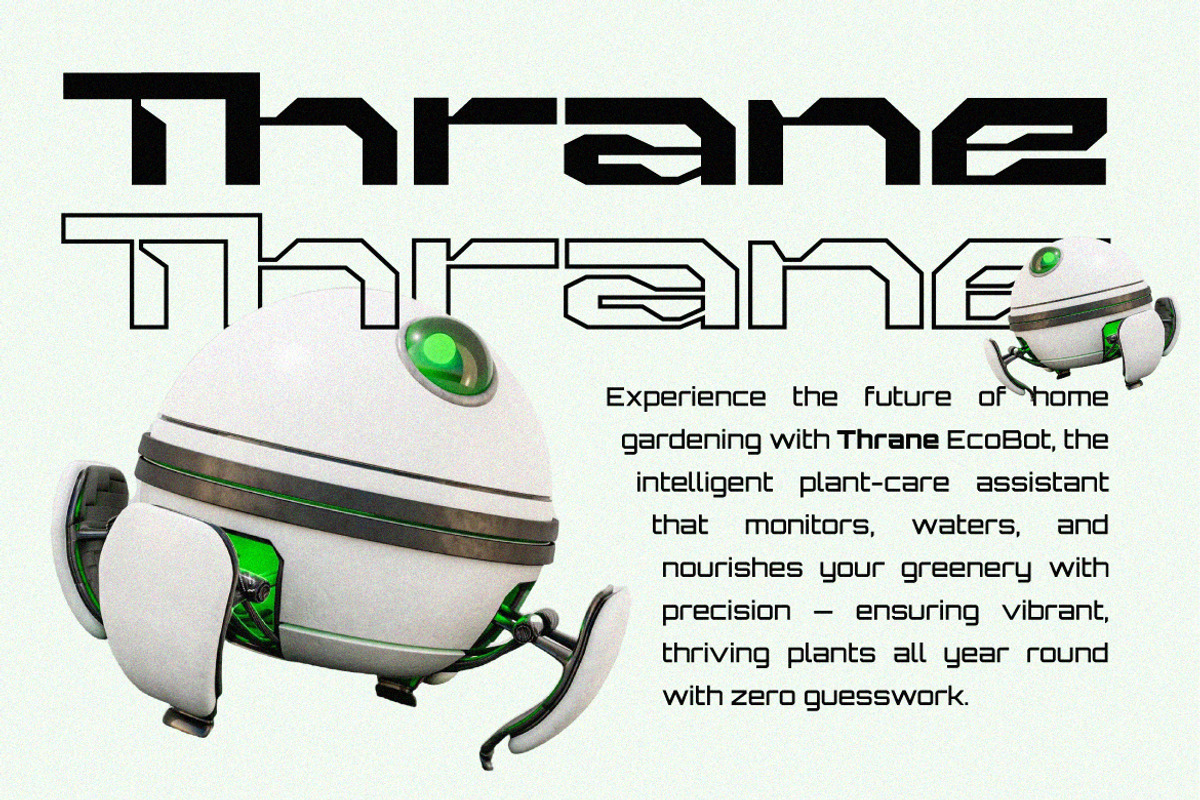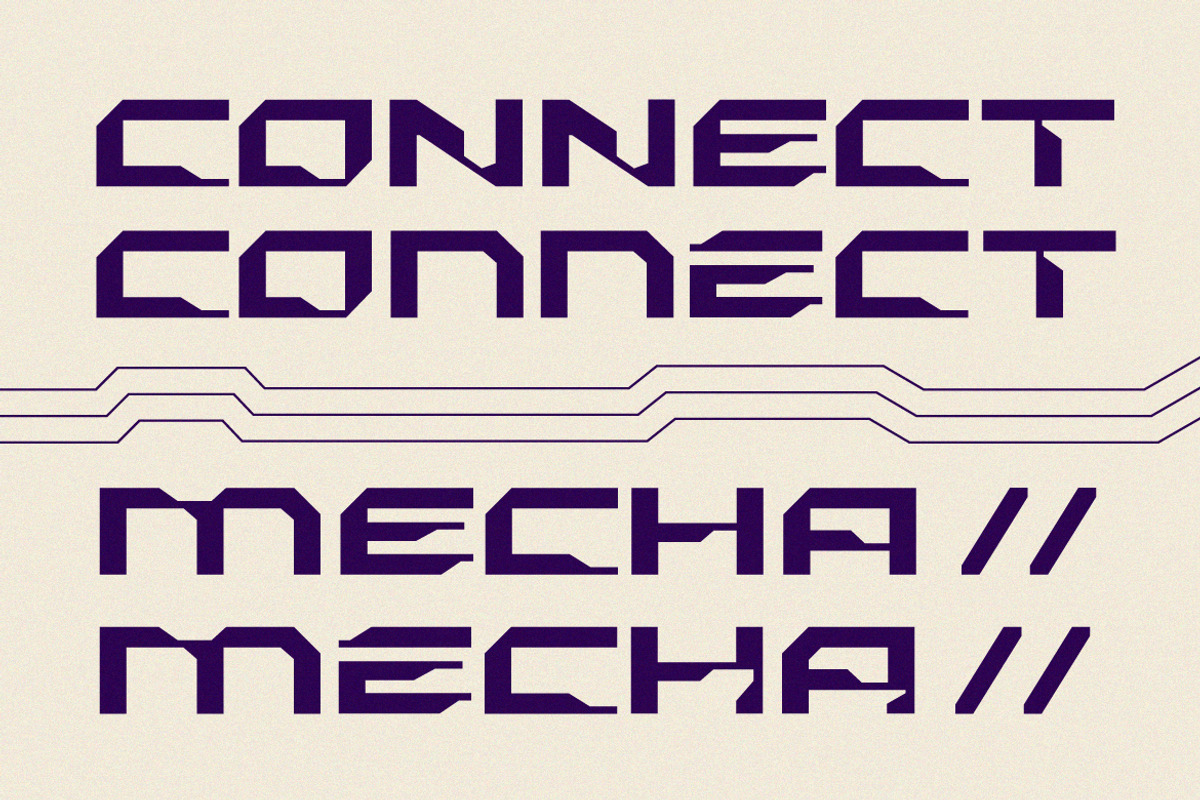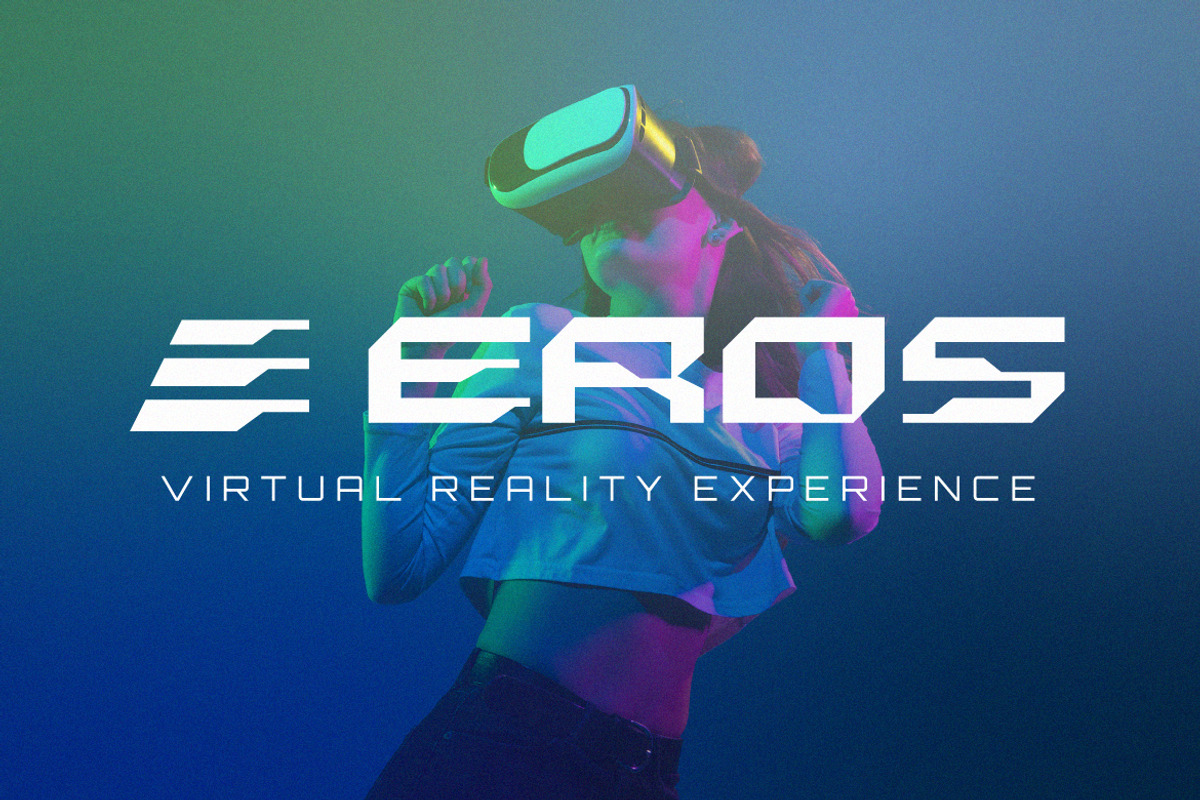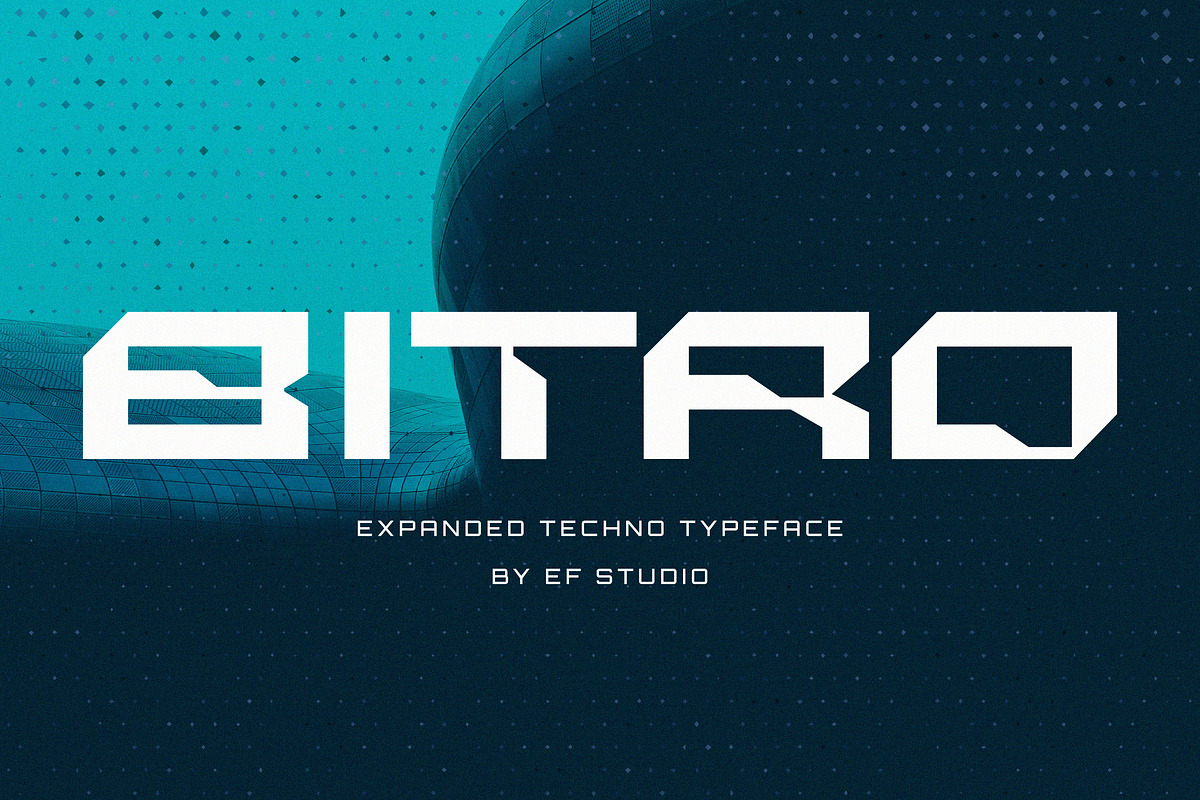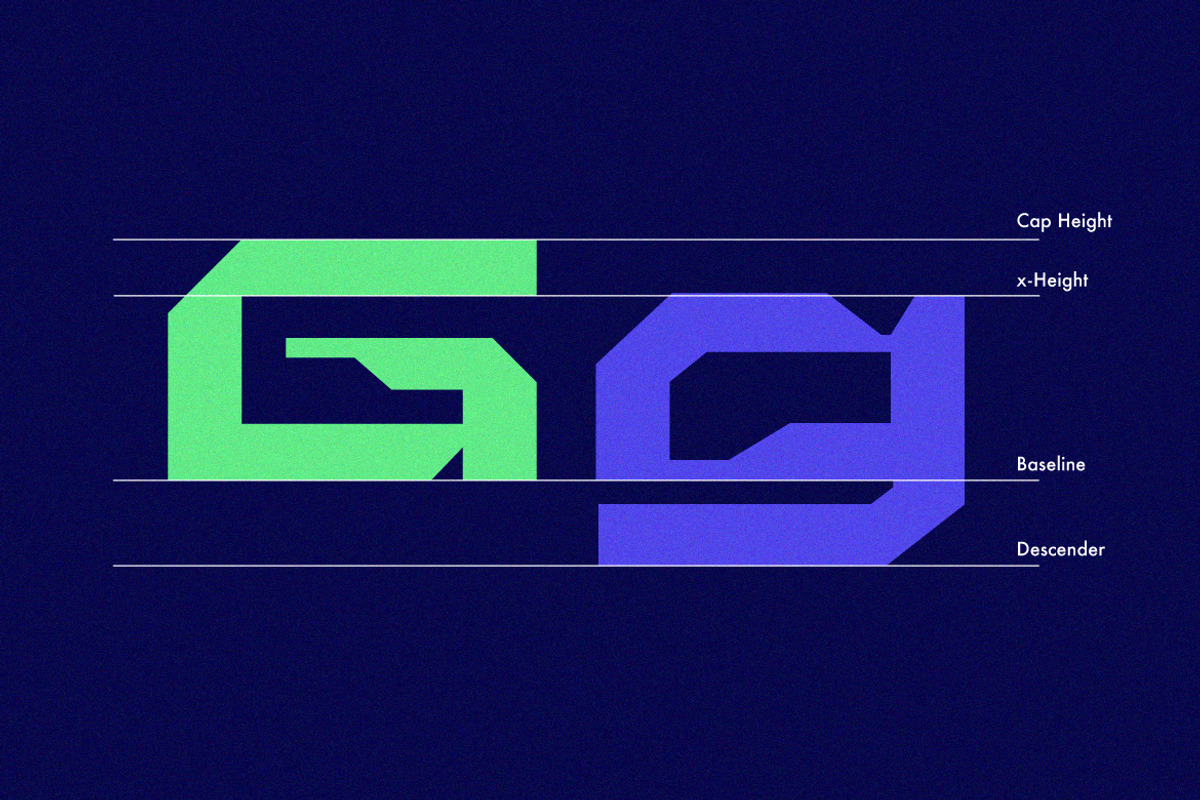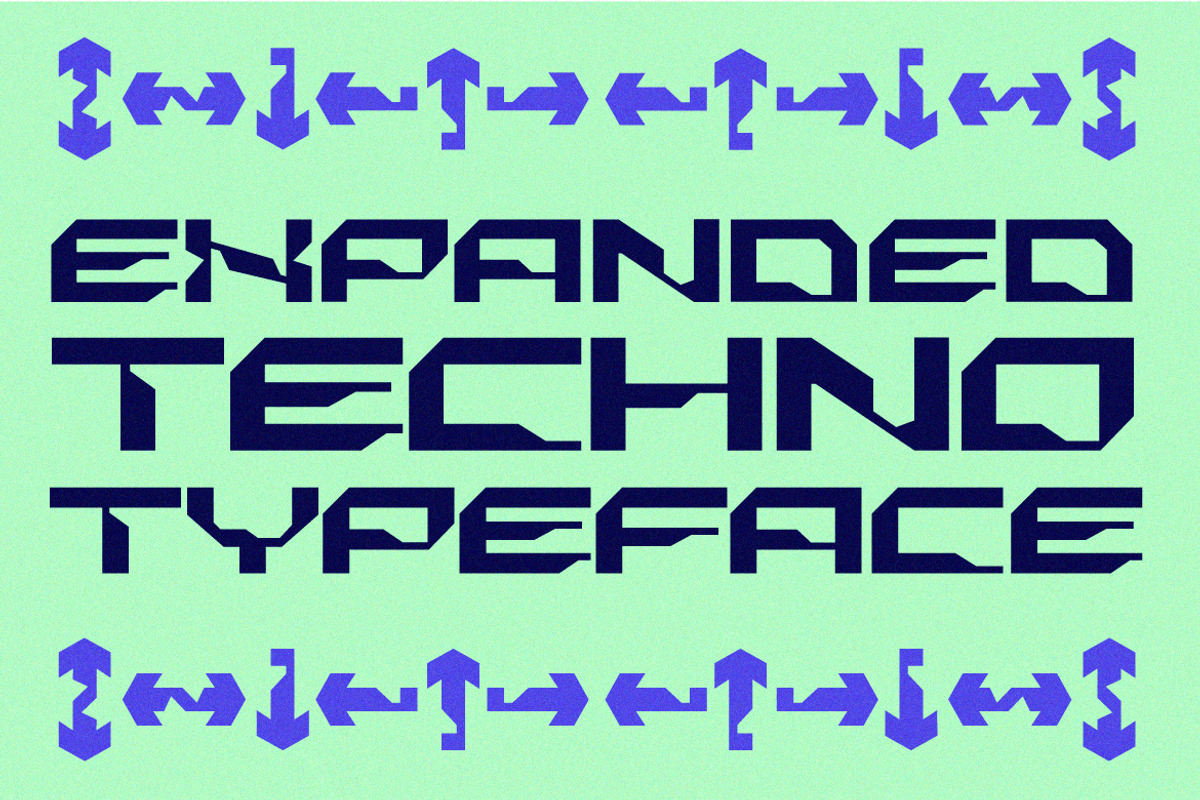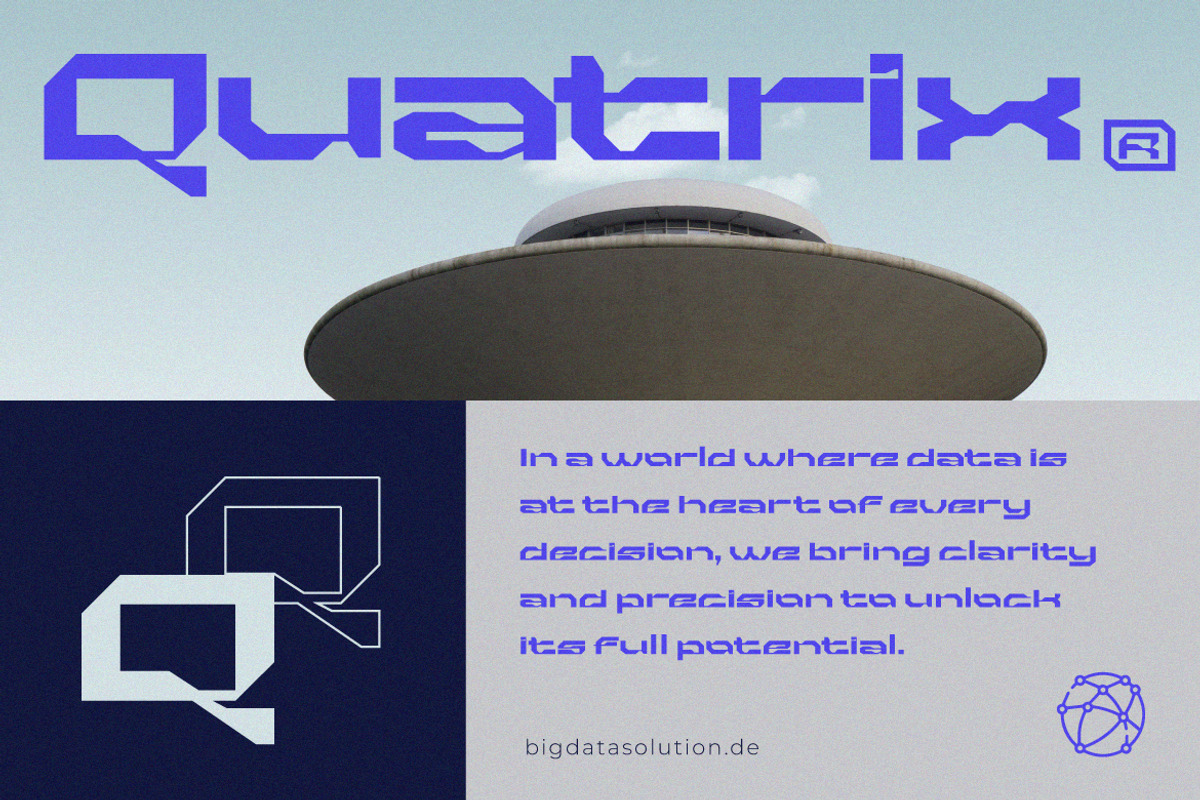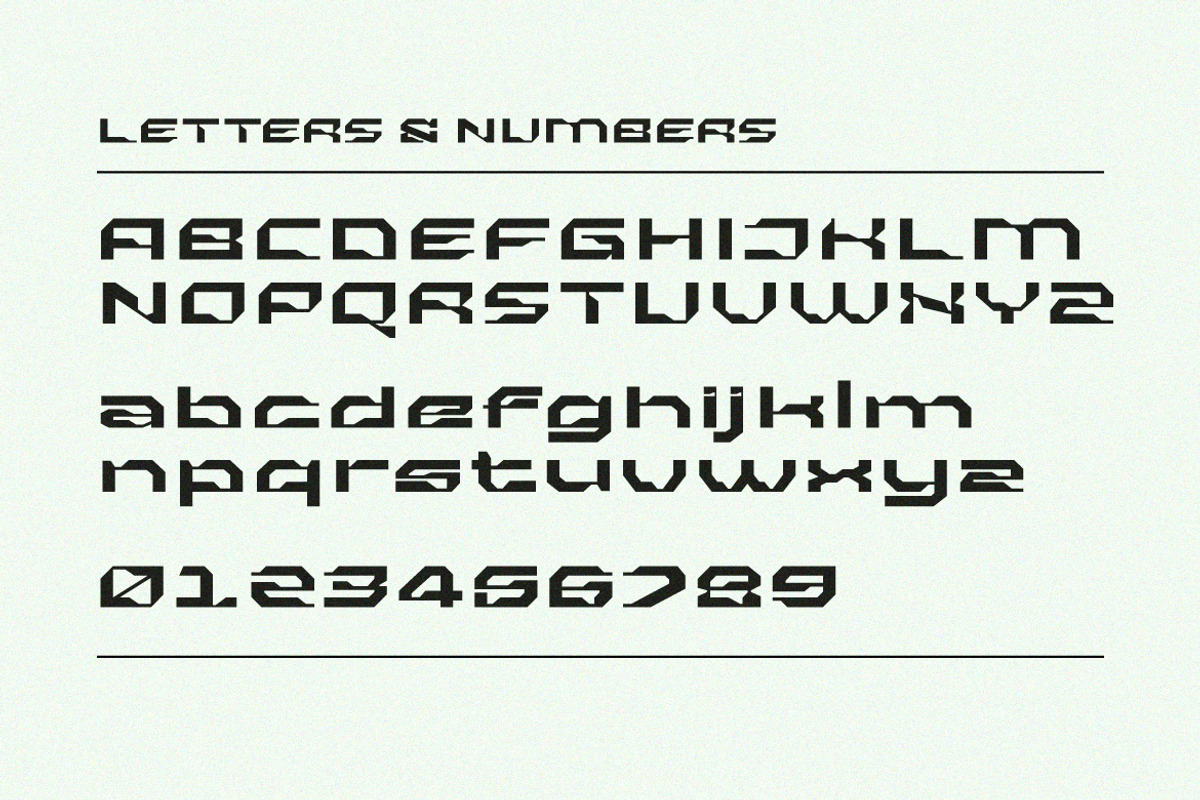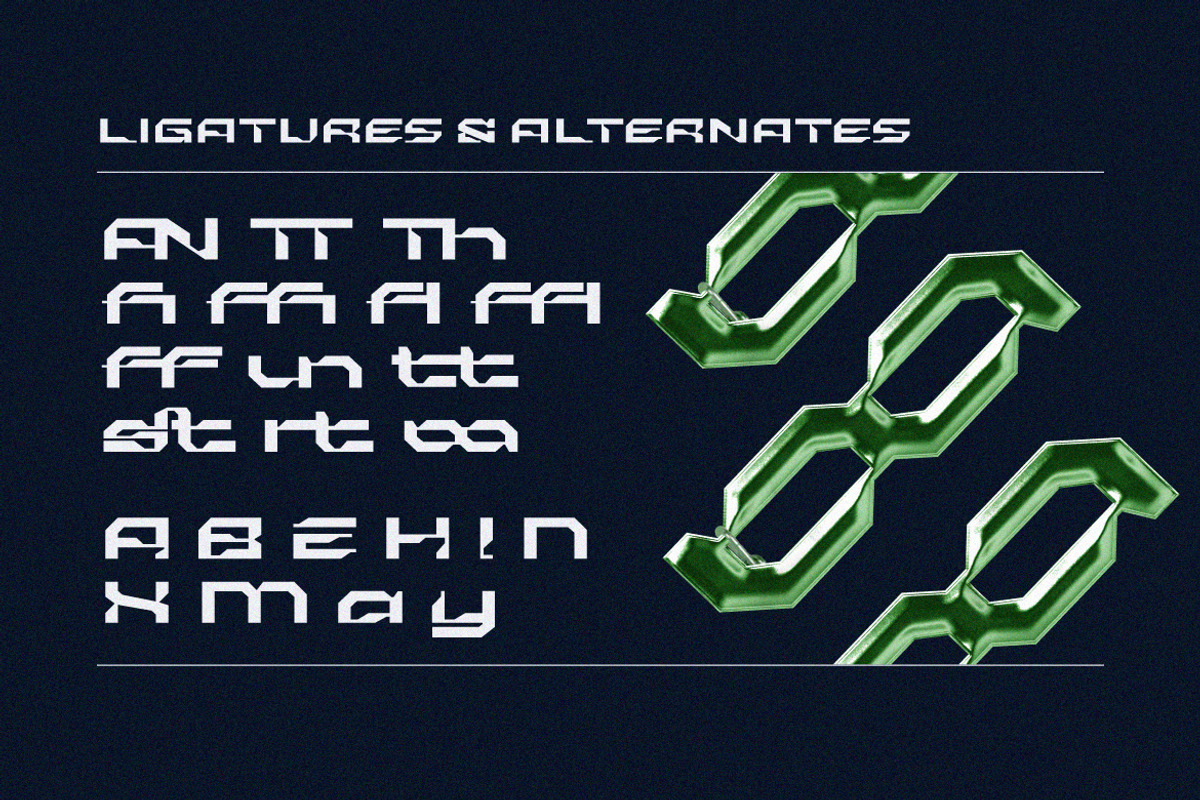
Bitro | Futuristic Techno Font
Bitro is a futuristic and cutting-edge display font that merges the worlds of technology and design. With its bold, geometric structure and unique cut-out details, Bitro embodies a forward-thinking aesthetic that’s perfect for tech-driven brands, gaming projects, and sci-fi visuals.
Bitro’s wide, clean shapes give it a powerful, assertive presence, while its minimalist angles keep it sleek and modern. This typeface excels in large displays, headers, logos, posters, and any project where you need to make a strong statement.